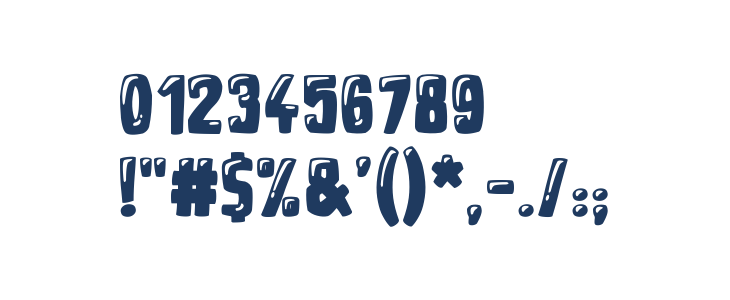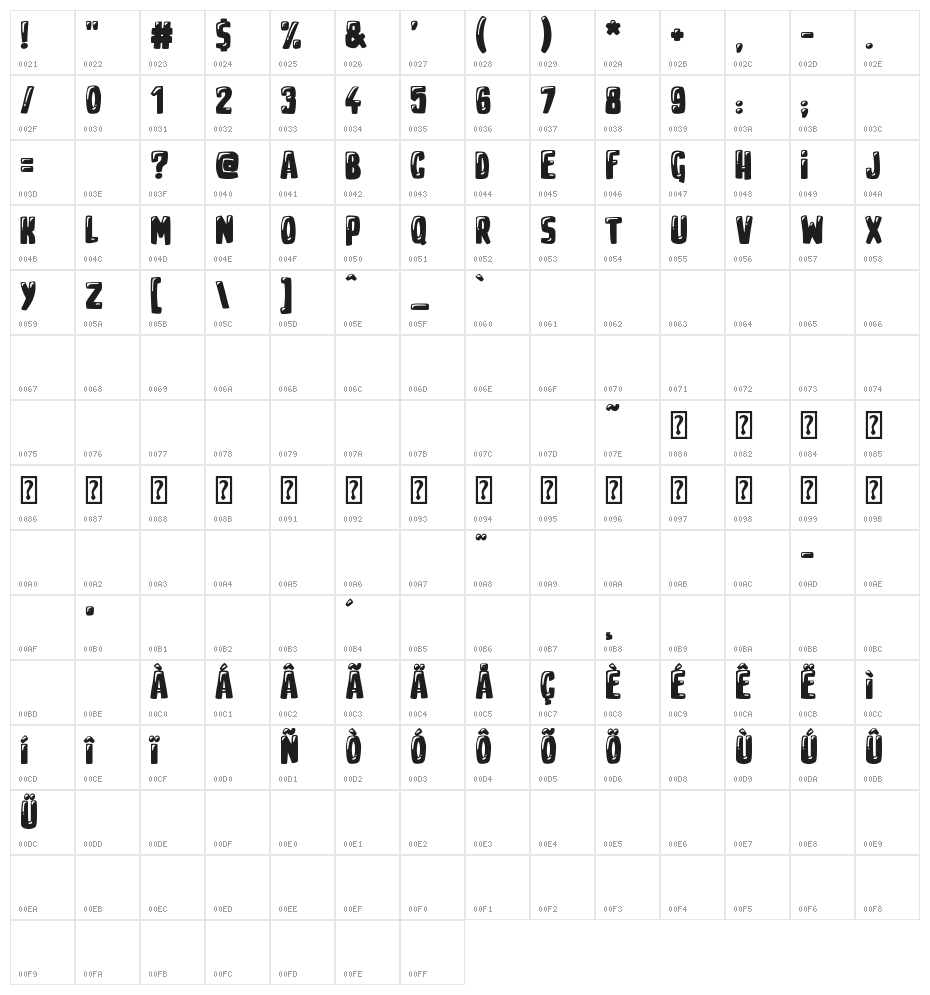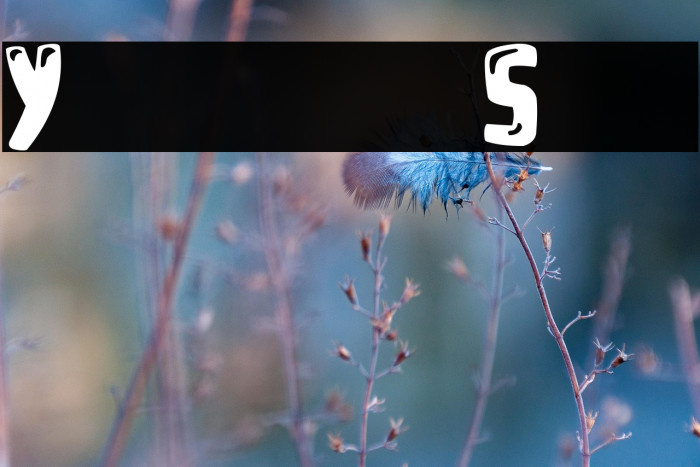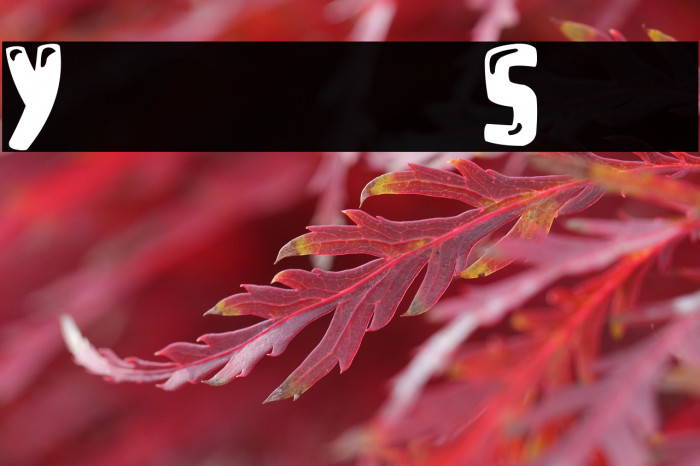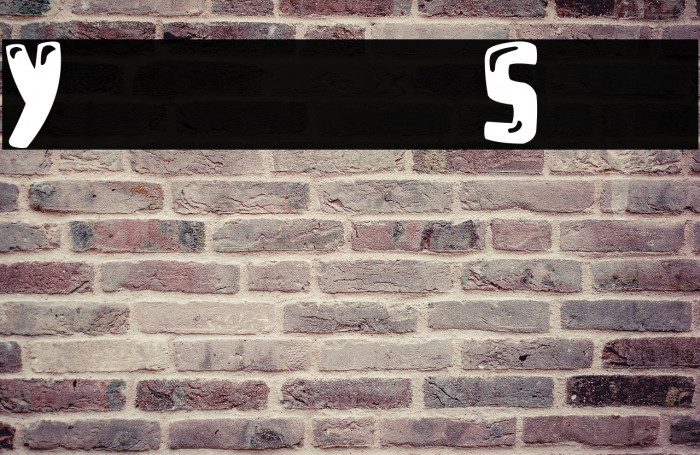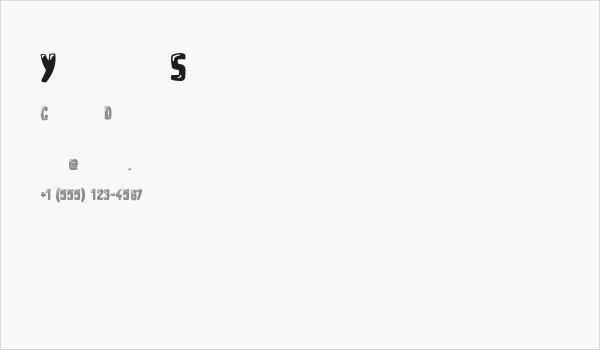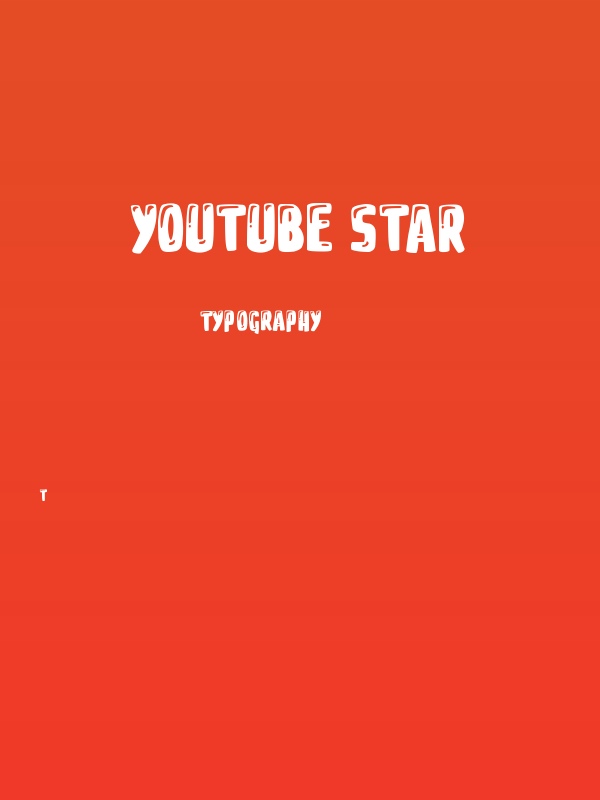
Youtube Star Font
Youtube Star Description
This font features a bold, playful style with a hand-drawn appearance. The characters are thick and rounded, giving them a friendly and approachable look. Each letter has a unique, slightly irregular shape, adding to the whimsical and informal feel. The font includes uppercase letters, numbers, and a variety of special characters, all maintaining a consistent, chunky design. The strokes are uniform in width, contributing to a cohesive and balanced appearance. This font is ideal for projects that require a fun and engaging aesthetic, such as children's books, posters, or social media graphics.
| Overall Style | Playful, Whimsical |
| Proposed Projects | Ideal for children's books, posters, social media graphics, and playful branding. |